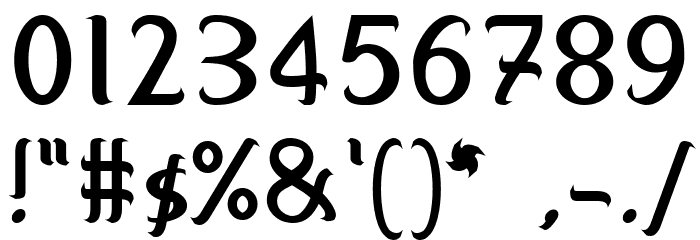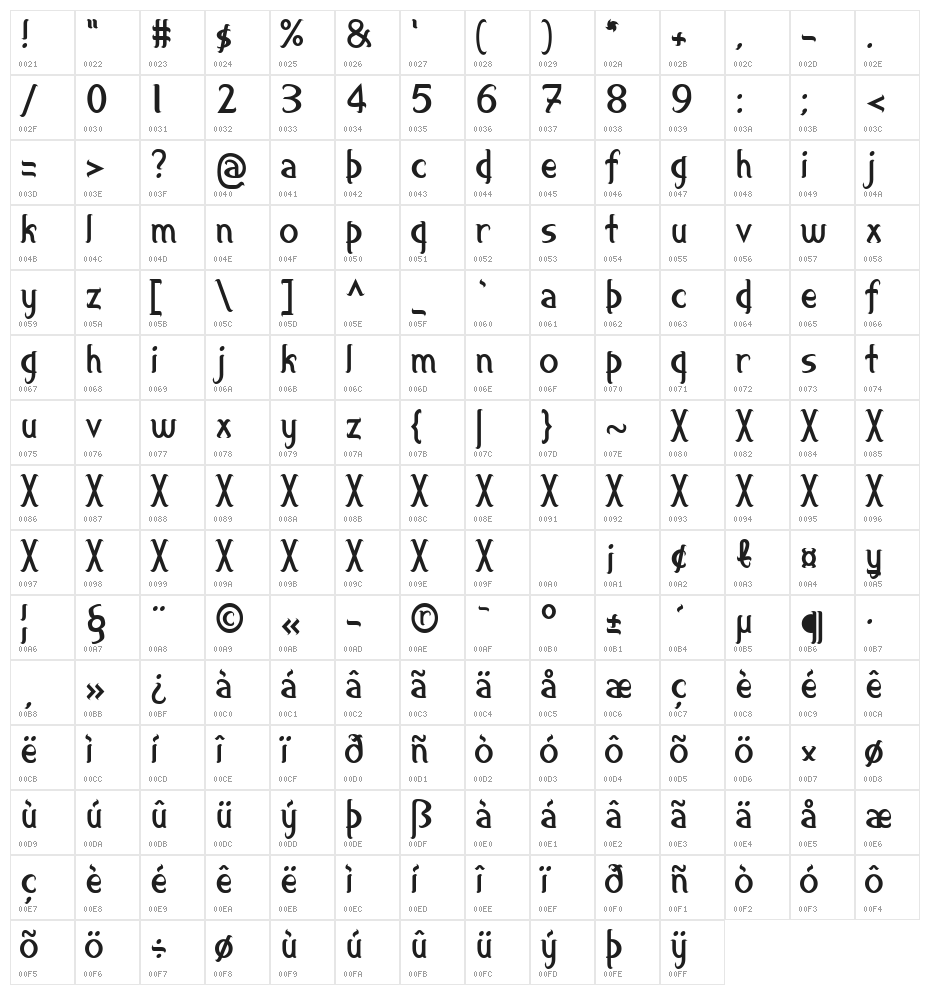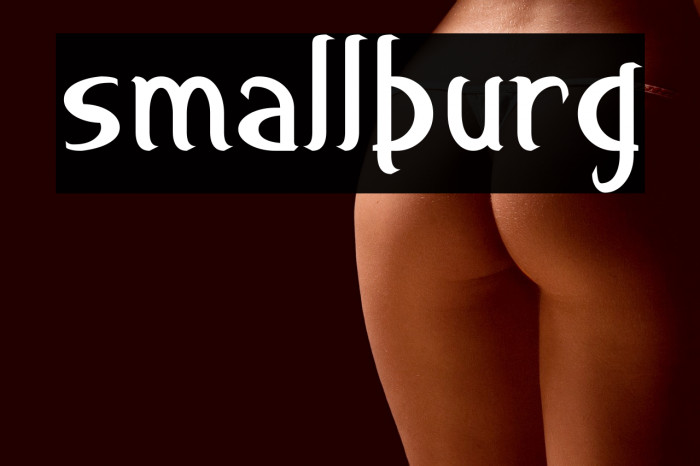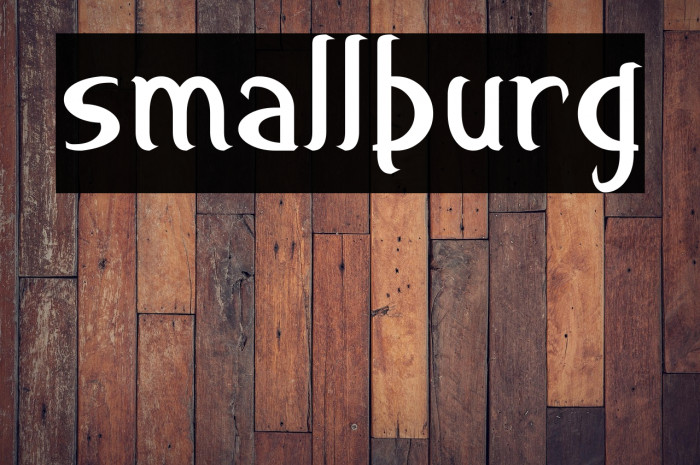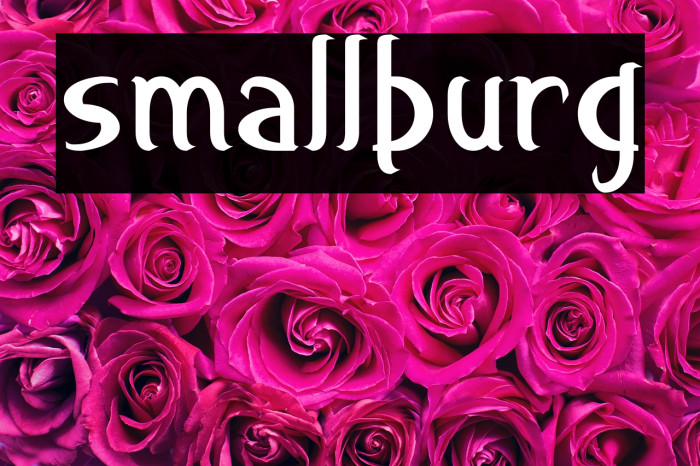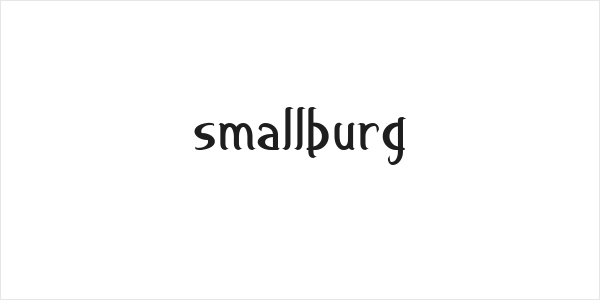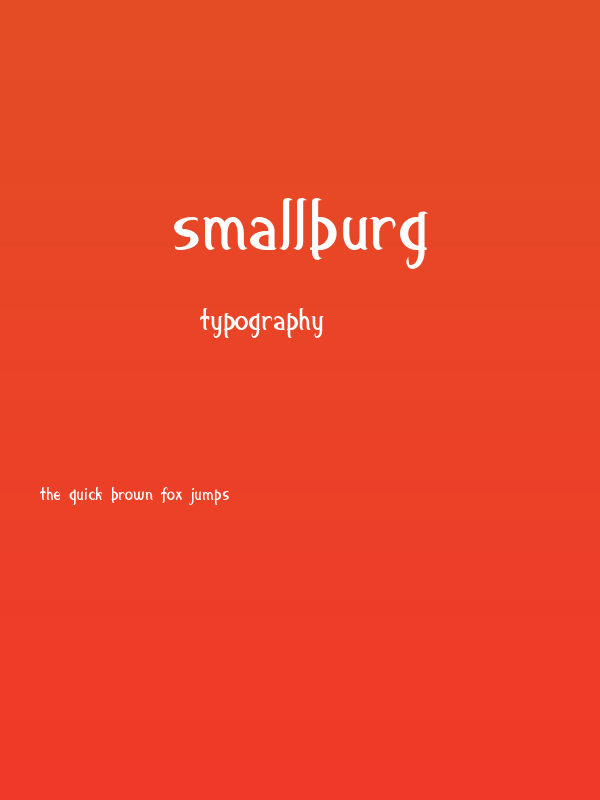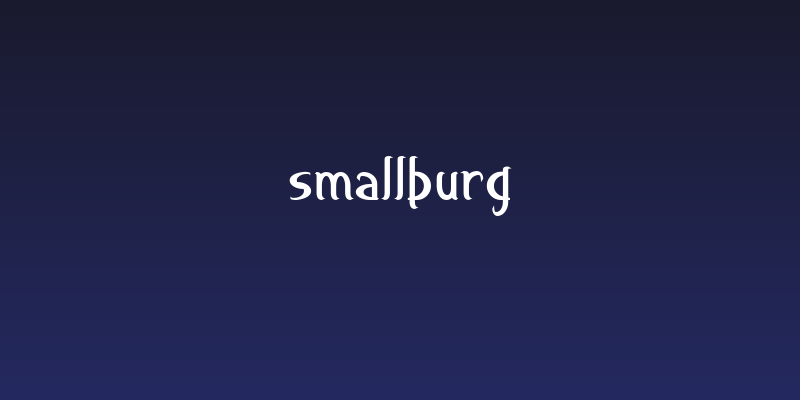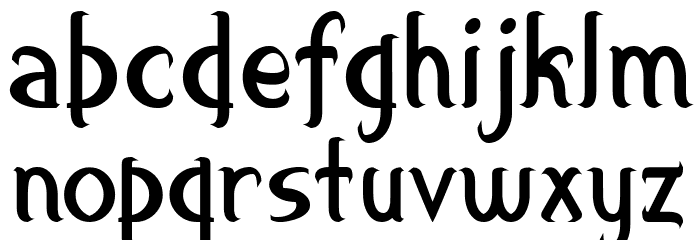
smallburg Font
smallburg Description
This font features a unique blend of modern and classic elements, characterized by its distinct, slightly curved serifs and a playful yet sophisticated appearance. The letters have a consistent stroke width, providing a balanced and harmonious look. The lowercase letters exhibit a whimsical flair, with rounded edges and subtle variations in line thickness that add a touch of elegance. The numerals are clear and legible, maintaining the font's overall aesthetic. Special characters are thoughtfully designed, complementing the alphabet with their distinctive style. This font is versatile, making it suitable for a variety of design projects.